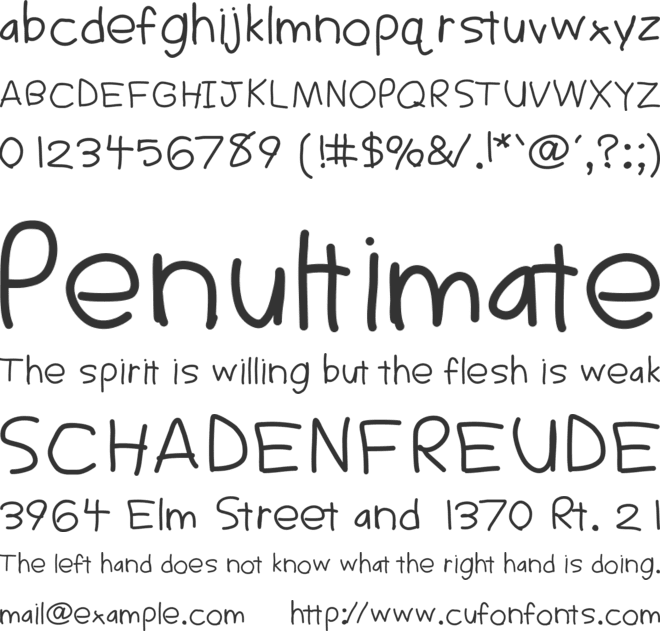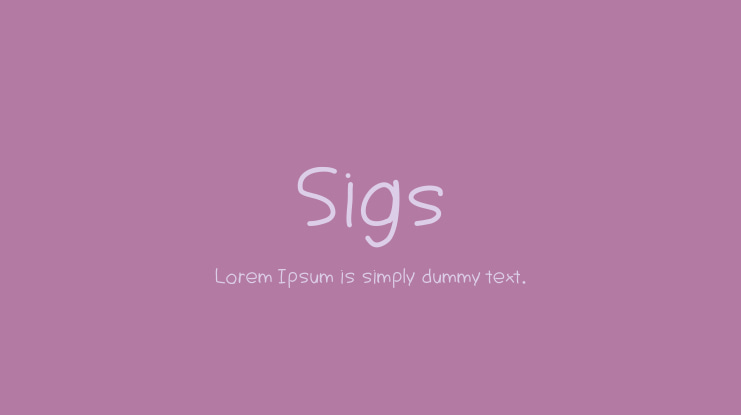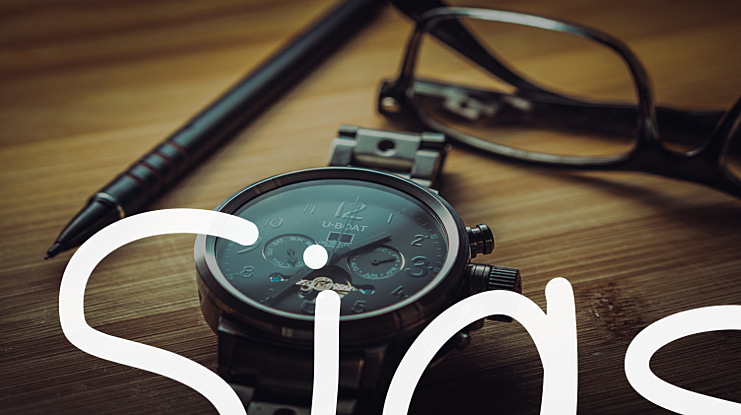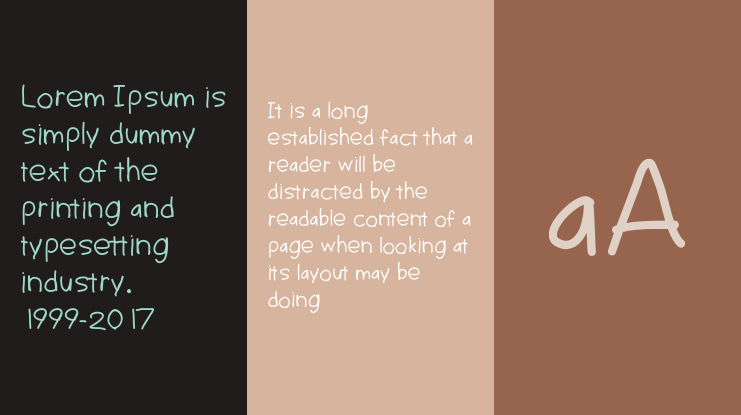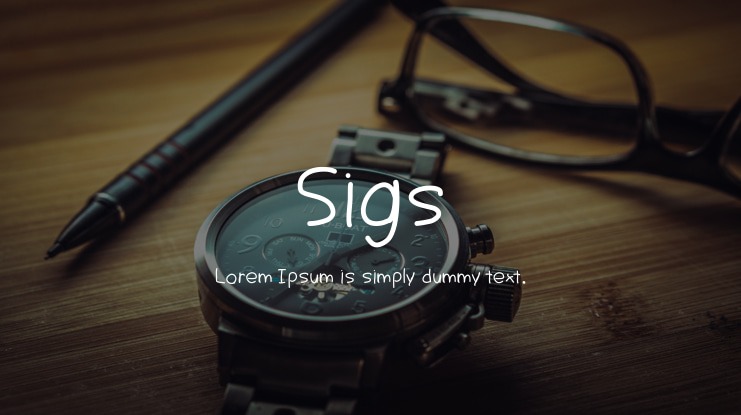
Sigs Font
Hi! My name is Matt Bruinooge. Thanks for checking out my typeface. I created Kiddish based on my best friend Paul Signore's handwriting from when he was little.